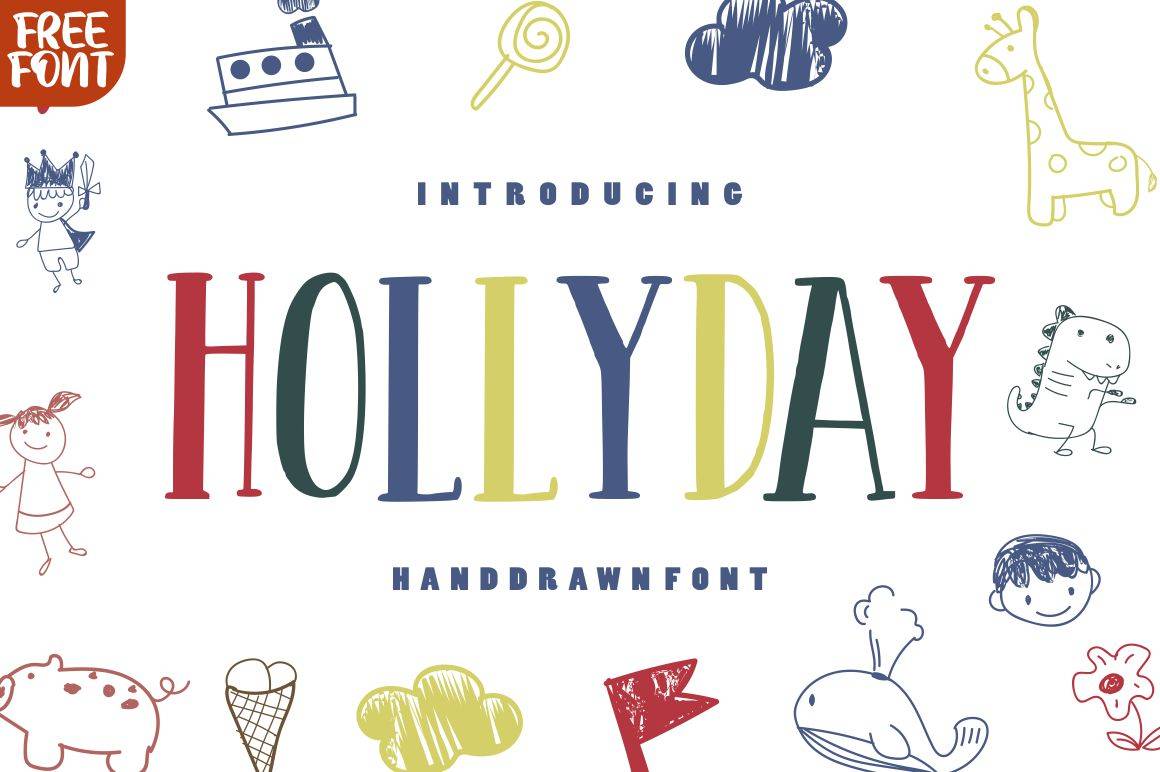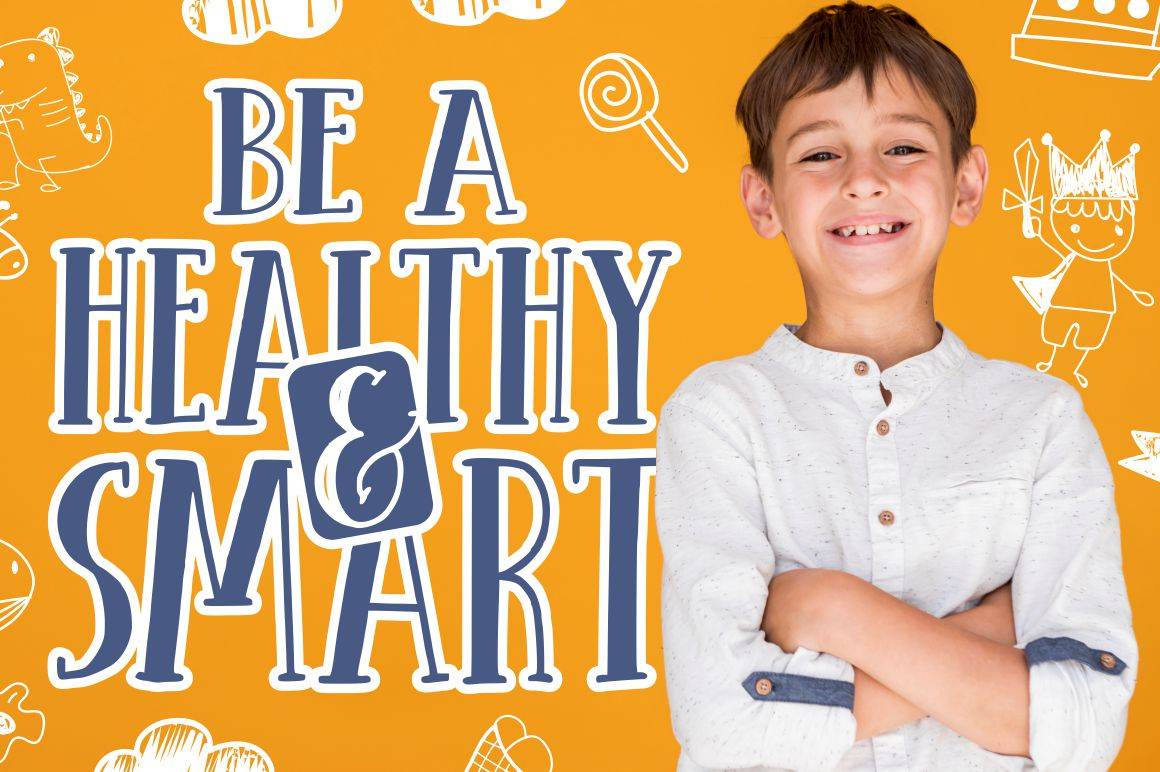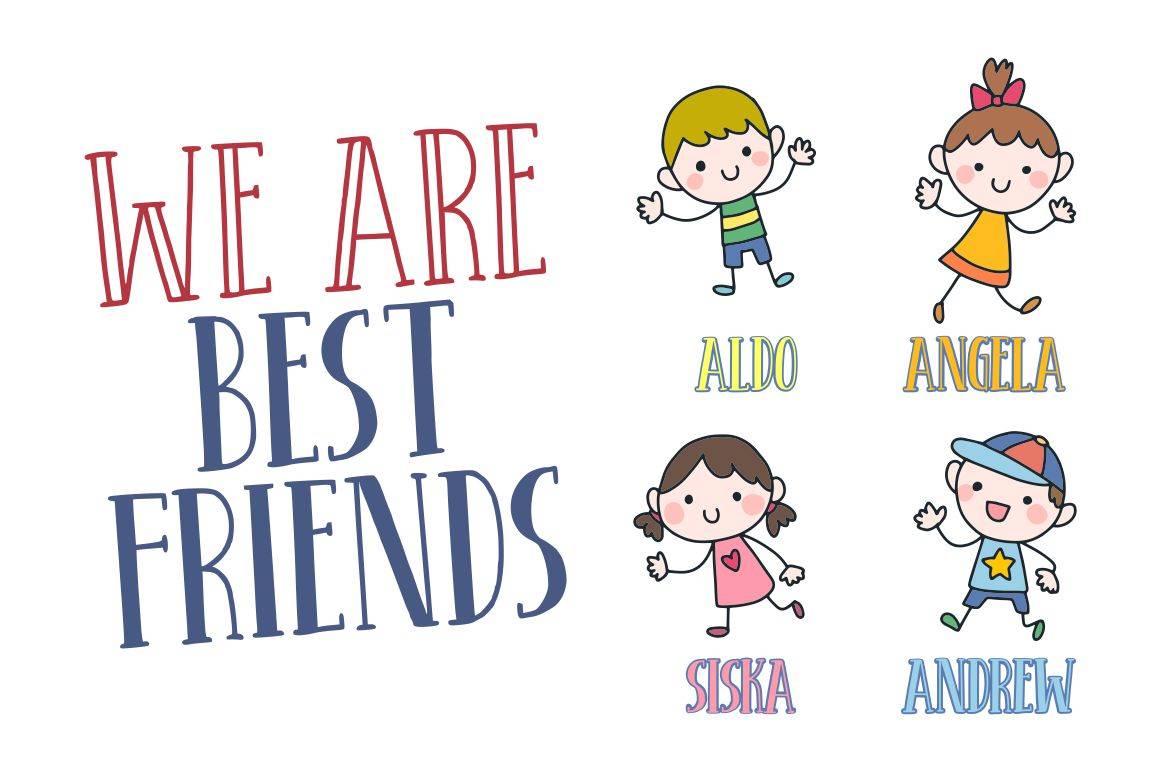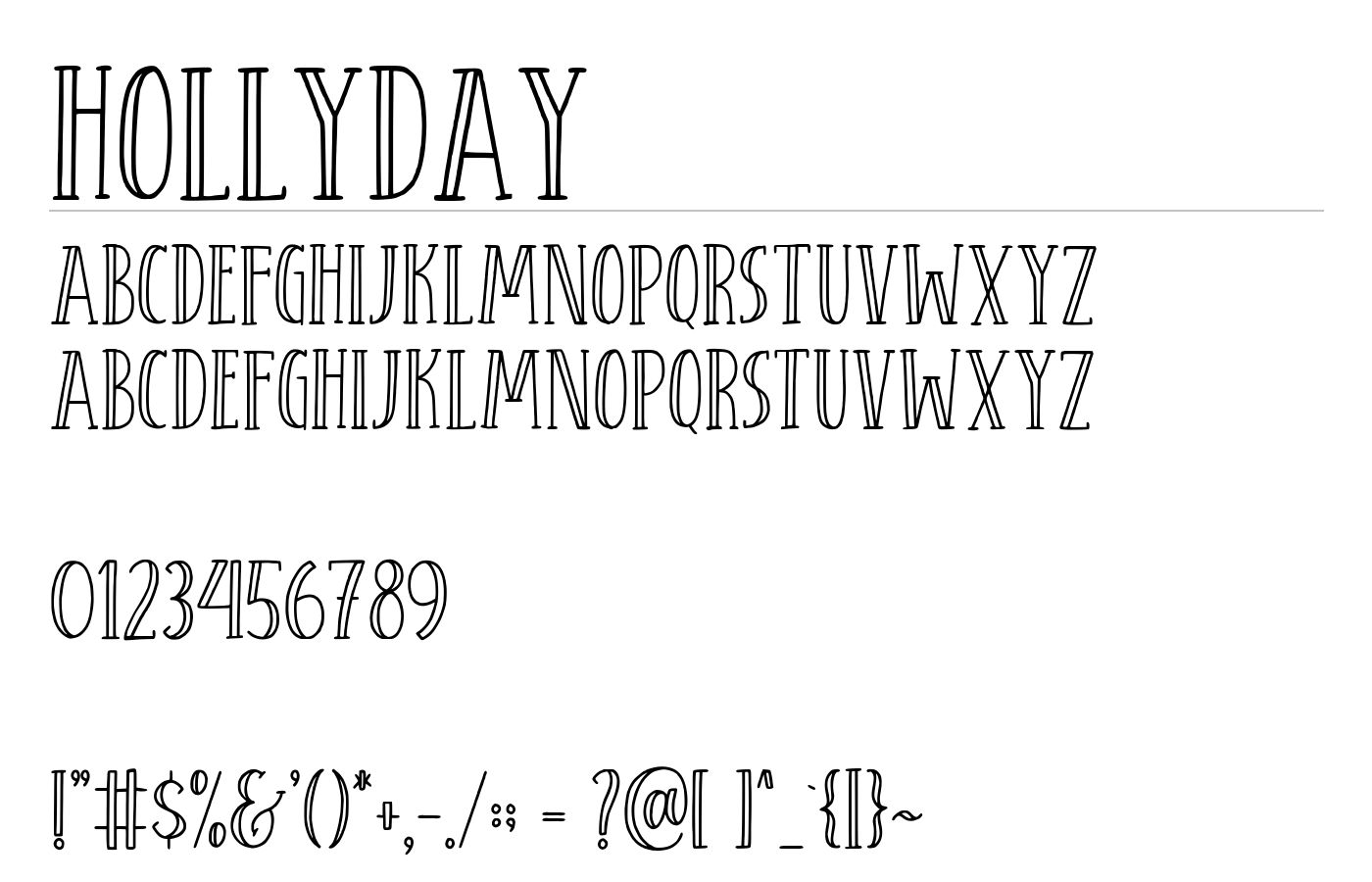
Hollyday is a tall, narrow serif font with a playful and slightly vintage vibe, characterized by its thin strokes and subtle contrast. Its hand-crafted feel and unique, elongated letterforms make it perfect for eye-catching headlines, posters, and creative branding projects that want to convey charm and personality. This font works well in designs that seek a whimsical yet elegant touch, bringing a distinctive and approachable style.
Hollyday Font
About Hollyday Font
| Font family | Hollyday Font |
| Designer | Good Java Studio |